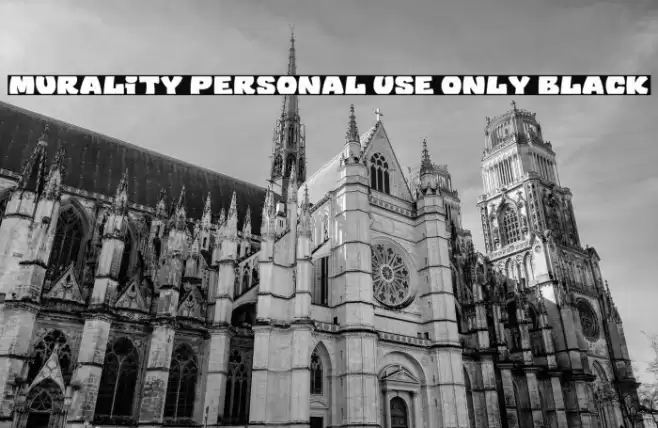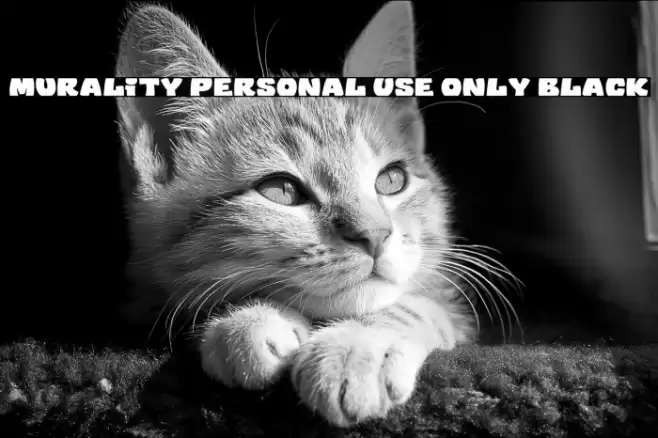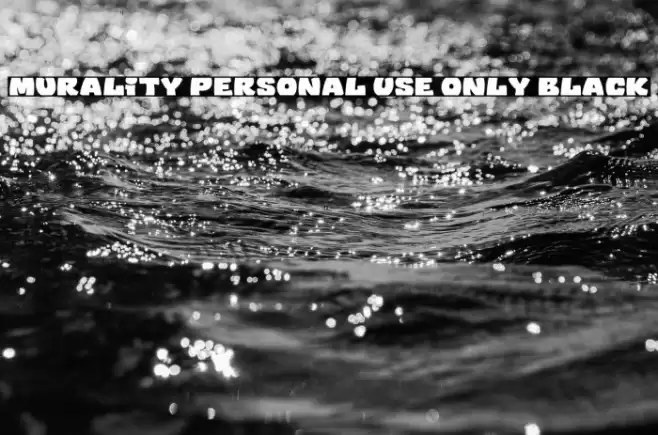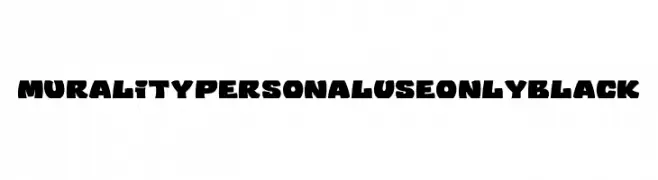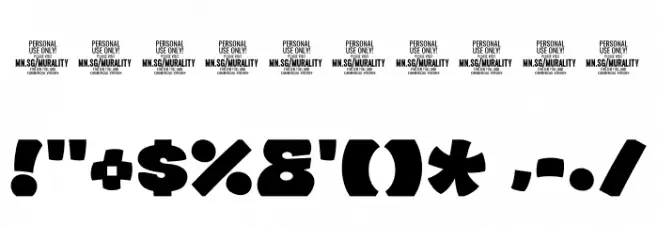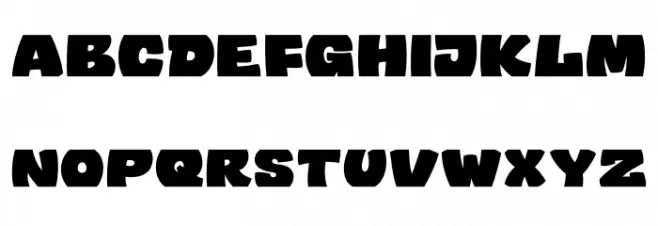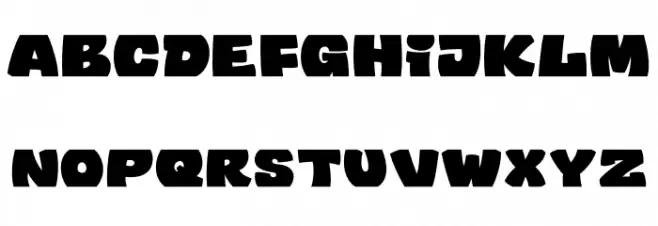
Murality PERSONAL USE ONLY Black Font
Murality PERSONAL USE ONLY Black Description
A bold, geometric display typeface with heavy, blocky letterforms and irregular, playful shapes. The characters have a hand-crafted, stencil-like appearance with uneven edges and a strong visual impact.
A chunky, geometric display font with playful, irregular forms from Uncategorized fonts.
- Proposed Projects: Posters, murals, street art, branding for creative industries, event flyers, children’s book covers.
- Character Spacing: Tight
- Overall Style: Decorative, Playful, Urban
- Use Case: Headlines, Posters, Logos, Signage